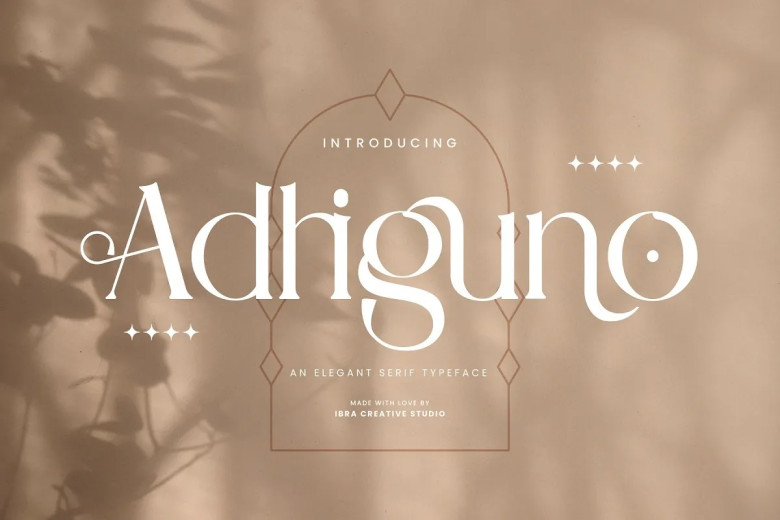
Adhiguno Font
Adhiguno, a refined serif typeface, exudes class and timeless appeal due to its exquisite design. Its sophisticated serifs achieve an ideal blend of traditionalism and contemporaryism, while its letterforms boast elegant style with well-balanced strokes and subtle details that enhance visual and readability.
Adhiguno’s versatility is evident, making it suitable for applications ranging from editorial designs to corporate branding – its graceful curves convey professionalism making this font the ideal choice when adding refined typography elements like editorial designs or corporate branding projects!
Adhiguno Serif Font